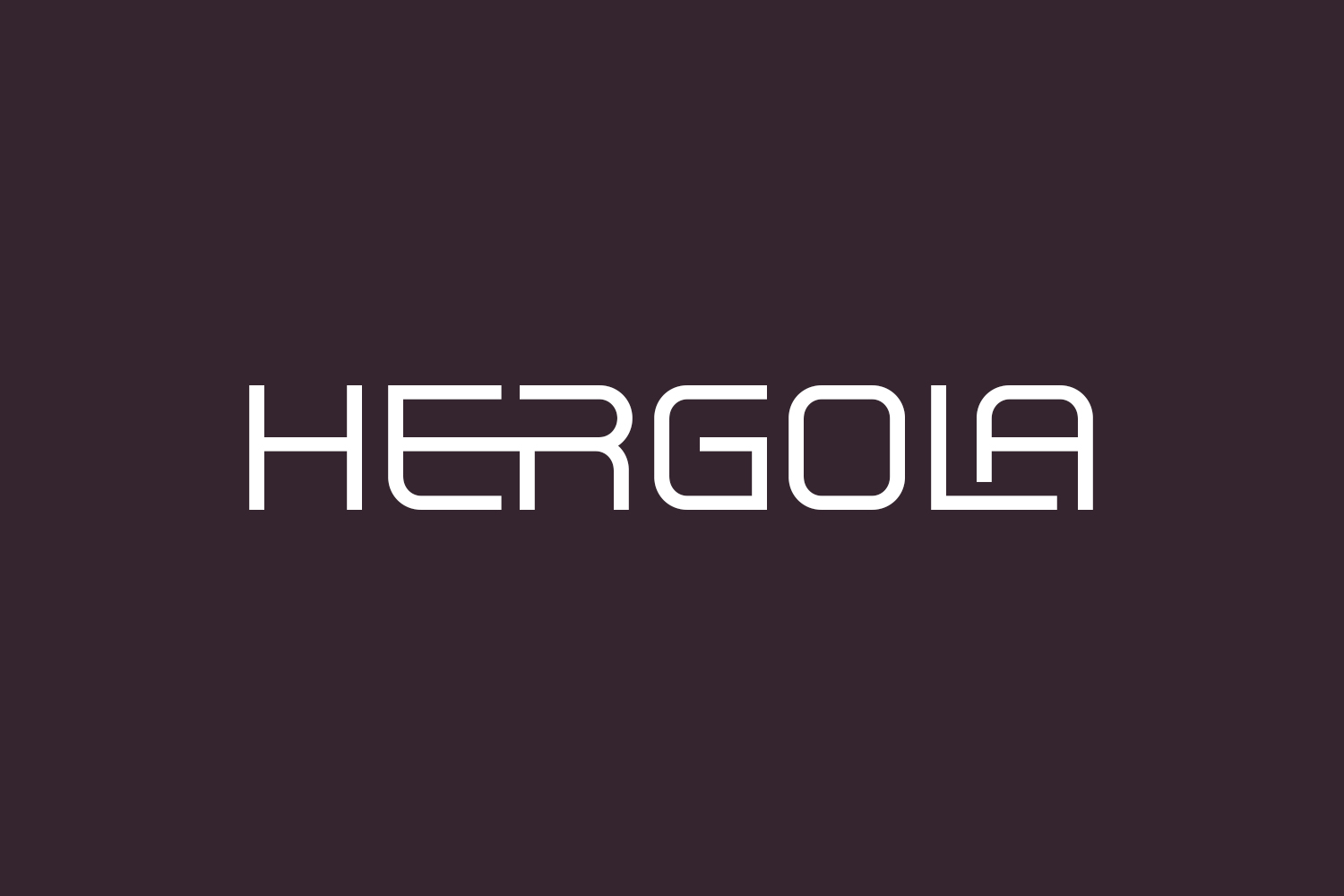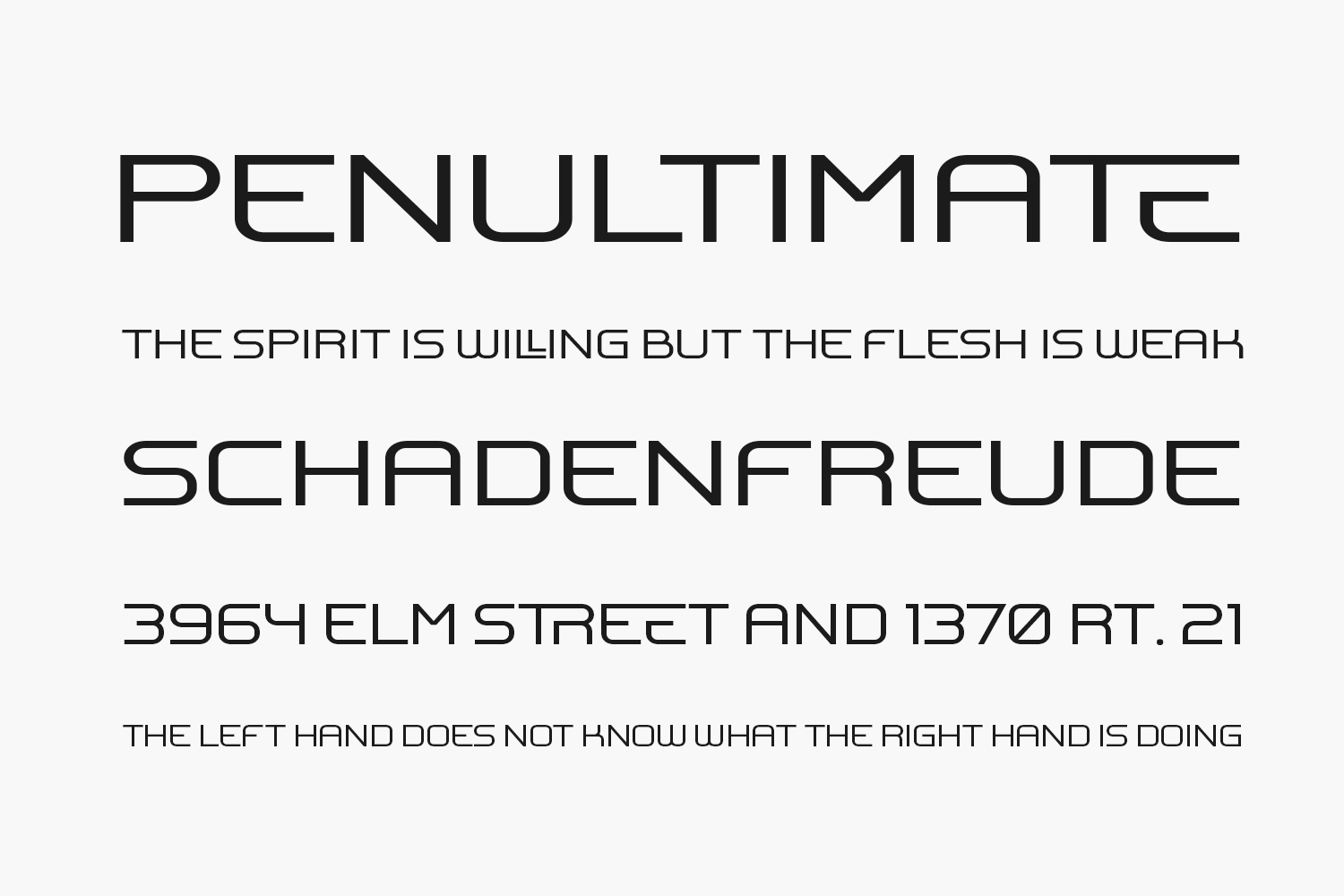
Hergola Free Font is a modern and futuristic sans serif font. Add it to any of your creative projects, and it will seduce your audience with its style and form. Hergola Free Font was designed by BrandSemut and is free for personal use only. Please purchase the full version for commercial use.
Designed by BrandSemut